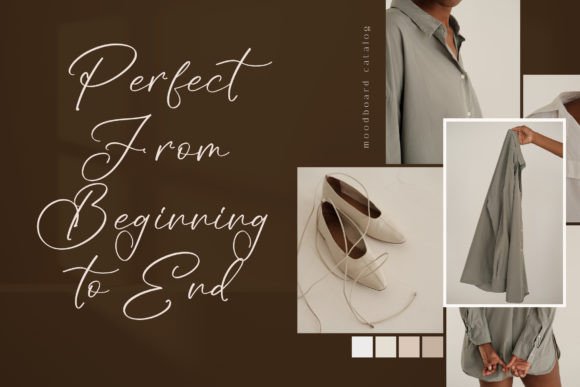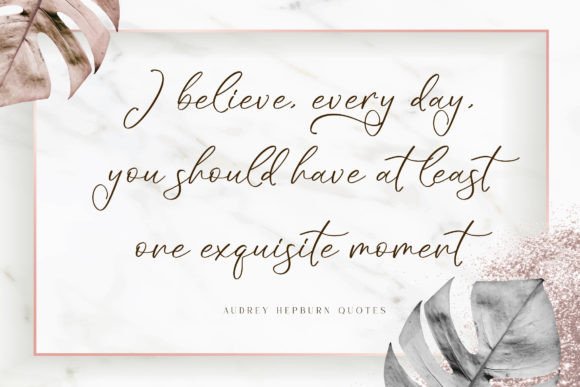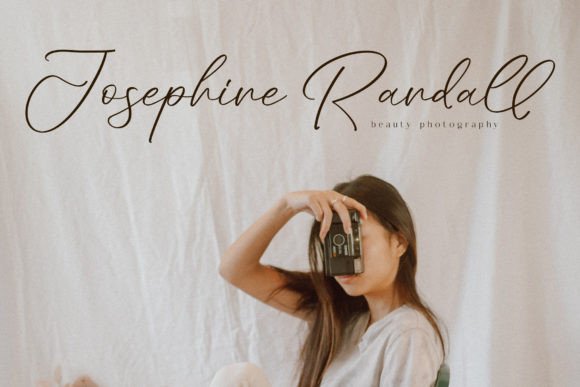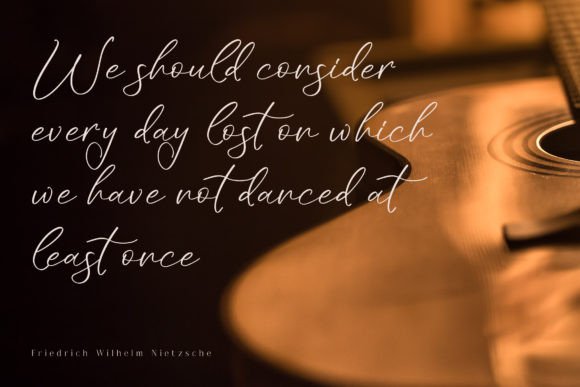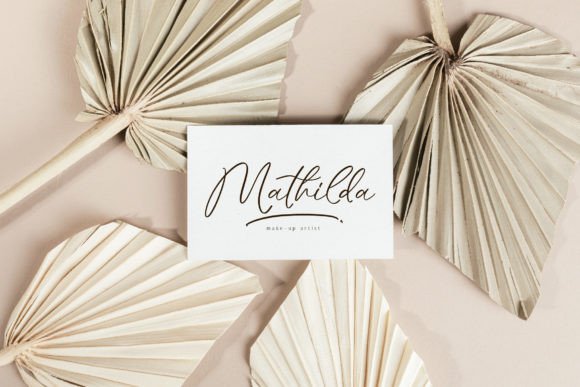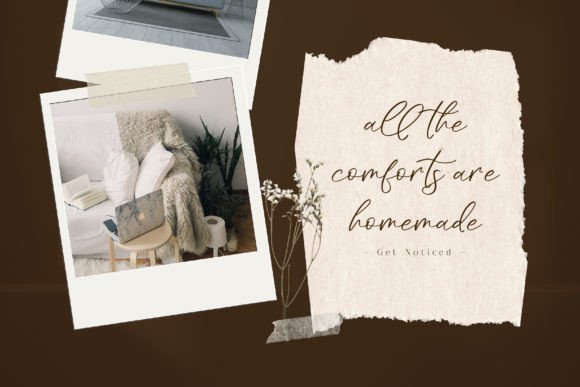
Introducing Adorytta Font: Elevate Your Designs with a Touch of Elegance
In the world of design, the right font can make all the difference. Whether you’re a professional designer or a crafty DIY enthusiast, finding the perfect typeface can elevate your project from ordinary to extraordinary. If you’re on the hunt for a font that exudes modernity, delicacy, and a flowing sense of style, look no further than Adorytta Font. This beautiful, handwritten font is poised to become your go-to choice for a wide range of design projects.
What is Adorytta Font?
Adorytta is a modern, delicate, and flowing handwritten font that has been carefully crafted to bring a touch of elegance and whimsy to your designs. Its unique, cursive style is characterized by smooth lines, gentle curves, and a light, airy feel that makes it perfect for a variety of applications. Whether you’re working on a logo design, a greeting card, or a t-shirt, Adorytta Font is sure to add a dash of personality and charm to your work.
Key Features of Adorytta Font
- Modern and Delicate: Adorytta Font boasts a contemporary, refined aesthetic that is both stylish and sophisticated.
- Flowing Handwritten Style: The font’s smooth, cursive lines create a sense of movement and fluidity, making it perfect for designs that require a touch of elegance.
- Versatile: Adorytta Font can be used for a wide range of design projects, from logos and branding materials to greeting cards, mugs, and t-shirt designs.
- Cute and Playful: Despite its elegance, Adorytta Font also has a playful, charming side that makes it perfect for designs that require a touch of whimsy.
Design Ideas with Adorytta Font
So, what can you create with Adorytta Font? The possibilities are endless! Here are a few ideas to get you started:
- Mugs: Add a touch of personality to your ceramic mugs with Adorytta Font. Perfect for gifts or everyday use.
- T-Shirt Designs: Create eye-catching, fashion-forward designs for t-shirts, hoodies, and other apparel.
- Logo Designs: Use Adorytta Font to create stunning logos for businesses, events, or personal projects.
- Greeting Cards: Add a touch of elegance to your greeting cards, invitations, and stationery.
- Social Media Graphics: Elevate your social media presence with Adorytta Font. Perfect for creating engaging graphics, quotes, and promotions.
Why Choose Adorytta Font?
With so many fonts to choose from, why should you choose Adorytta Font? Here are just a few reasons:
- Unique Style: Adorytta Font offers a distinctive, one-of-a-kind style that will set your designs apart from the crowd.
- Ease of Use: The font is easy to read and works well in a variety of sizes, making it perfect for both digital and print applications.
- Customization: Adorytta Font can be easily customized to fit your design needs, allowing you to experiment with different colors, textures, and effects.